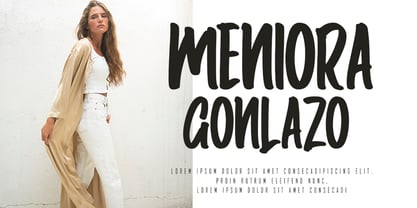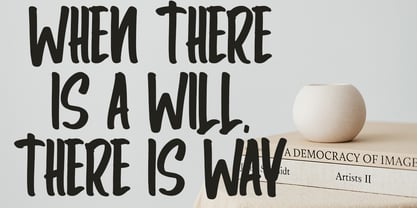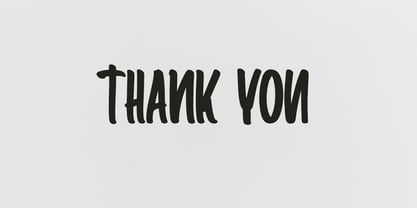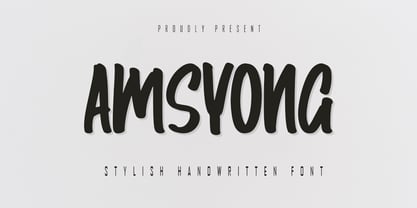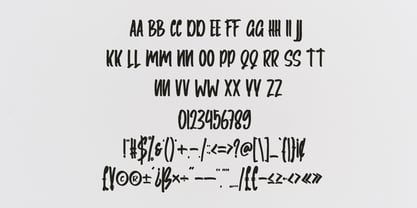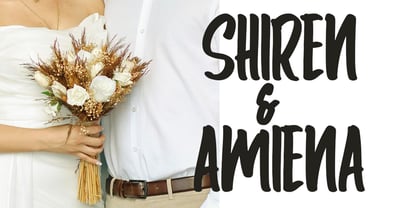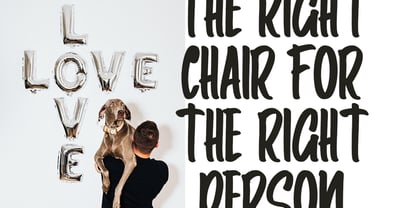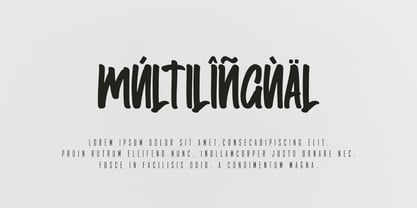
Amsyong
von Skiiller Studio
Die Schriftfamilie Amsyong wurde von Irfan Mahmudin entworfen und von Skiiller Studio veröffentlicht. Amsyong enthält 1 Stile.
Amsyong is a stylish handwritten display font that showcases bold strokes, playful curves, and a contemporary handcrafted aesthetic. Its strong yet approachable character makes it ideal for eye-catching designs, including logos, posters, social media graphics, branding projects, merchandise, headlines, and expressive quotes. With a smooth flow and youthful energy, Amsyong infuses personality and confidence into any creative endeavor, ensuring your message stands out with charm and style. This versatile font family is perfect for enhancing visual storytelling in both digital and print media, making it a valuable addition to your design toolkit.
Designer: Irfan Mahmudin
Herausgeber: Skiiller Studio
Foundry: Skiiller Studio
Eigentümer des Designs: Skiiller Studio